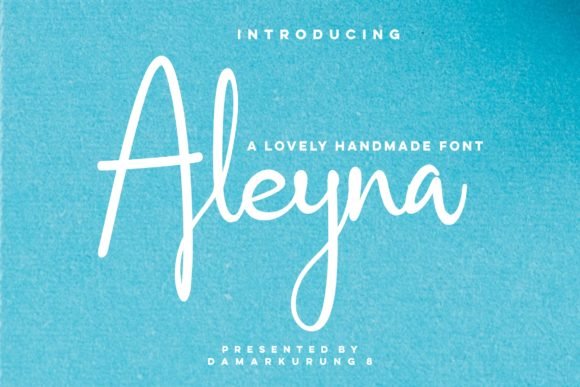
Discover the Allure of Aleyna Font
As designers, we’ve all had those moments where we stumble upon the perfect font to bring our creative vision to life. For me, it was a late-night search for the perfect script font to pair with a client’s logo design. And then, like a breath of fresh air, I found it – the enchanting Aleyna Font.
Aleyna Font is a stunning handwritten font that exudes elegance and sophistication. Its smooth curves make it an ideal choice for various printing techniques, from logos and magazine covers to birthday quotes and album art. This versatile font is a treasure trove for designers, offering endless possibilities for creative expression.
Whether you’re a seasoned designer or just starting out, Aleyna Font is a valuable addition to your toolkit. Its unique charm and versatility make it an essential element for any design project, ensuring that your work stands out from the crowd.
Aleyna Font Key Features
- Font Style: Script, Casual
- Unique Characteristics: Elegant, cursive script with a modern twist, perfect for creative and artistic projects
Aleyna Font Review
Overall, I found the Aleyna Font to be a beautiful, elegant script font. It’s perfect for those looking to add a touch of sophistication to their designs.
- ✨ Elegant and refined feel: The Aleyna Font is ideal for high-end branding, wedding invitations, and other designs that require a touch of luxury.
- ✨ Versatile: The font comes in various weights, making it easy to use in a range of contexts, from body text to headings.
- ✨ Well-crafted ligatures: The font’s ligatures are well-designed, ensuring that the text flows smoothly and looks professional.
- ⚠️ Limited language support: The Aleyna Font may not be suitable for languages that require a wide range of characters, such as Asian languages.
- ⚠️ May not be suitable for small text sizes: While the font looks great at larger sizes, it may become difficult to read at smaller sizes.
Overall, I would highly recommend the Aleyna Font for those looking to add a touch of elegance to their designs. While it may have some limitations, its beauty and versatility make it a great choice for a wide range of applications.
Tips: Use Aleyna Font for titles and headings to add a touch of elegance to your design. Experiment with different font sizes and colors to create visual hierarchy.
Tips: Use Aleyna Font for typography-heavy designs, such as brochures or posters. Experiment with layer styles and effects to add depth and interest.
Tips: Use Aleyna Font for headings and titles to add a touch of sophistication to your presentation or document. Experiment with different font sizes and colors to create visual hierarchy.
Aleyna Font is perfect for:
Branding and marketing materials
Typography-heavy designs, such as brochures and posters
Presentations and documents that require a touch of elegance
Alternatives to Aleyna Font